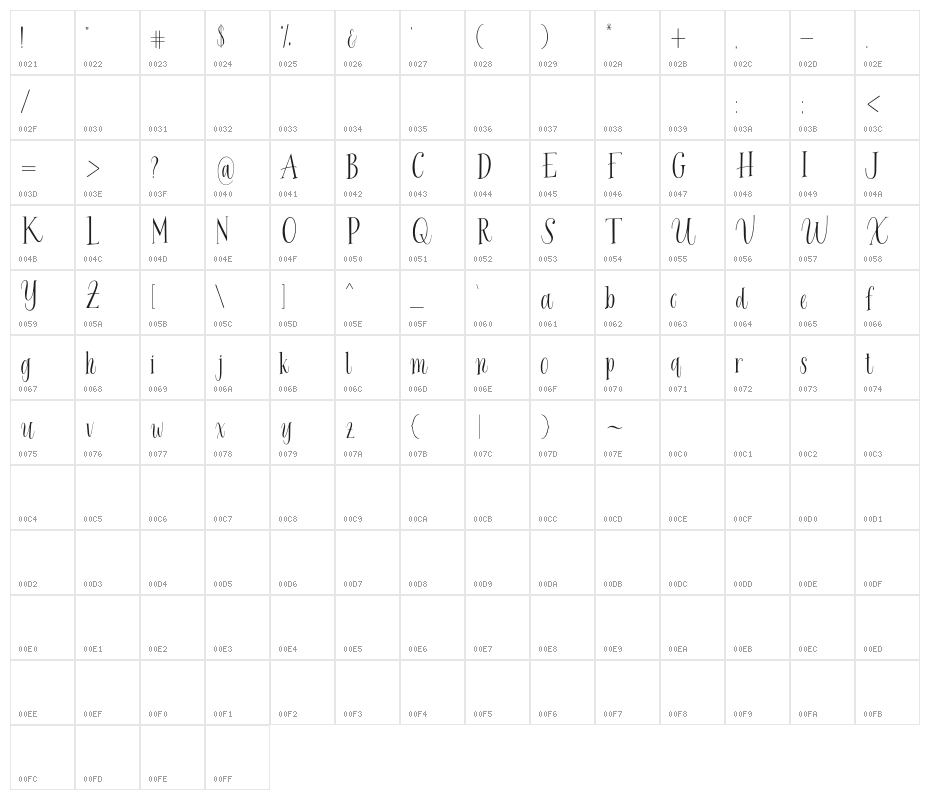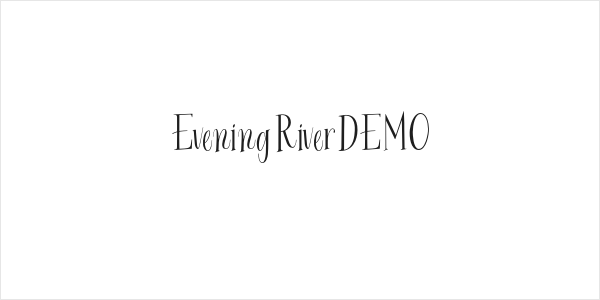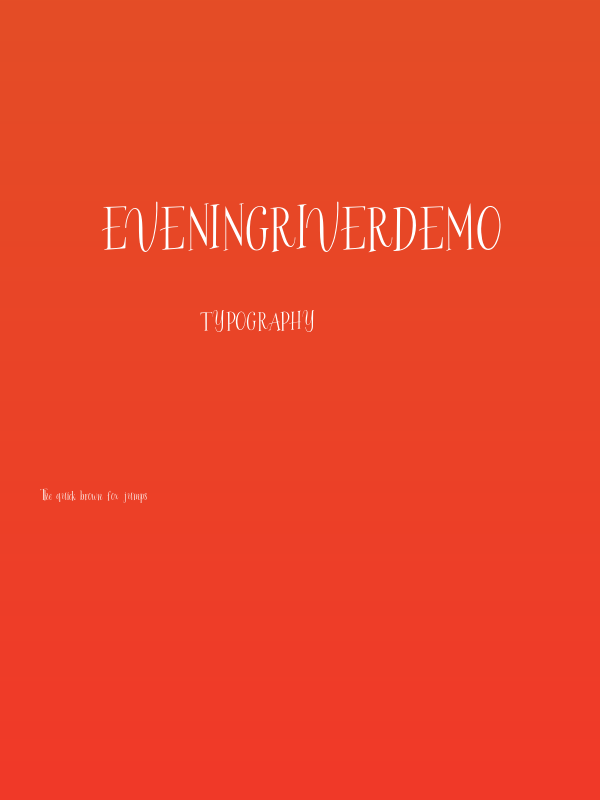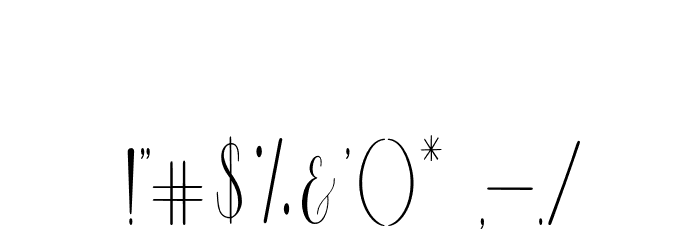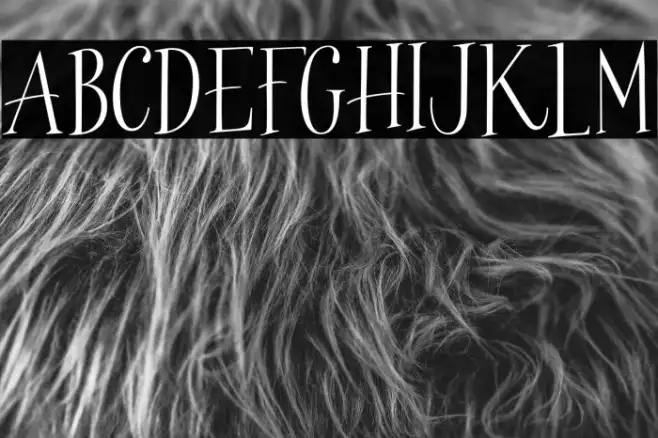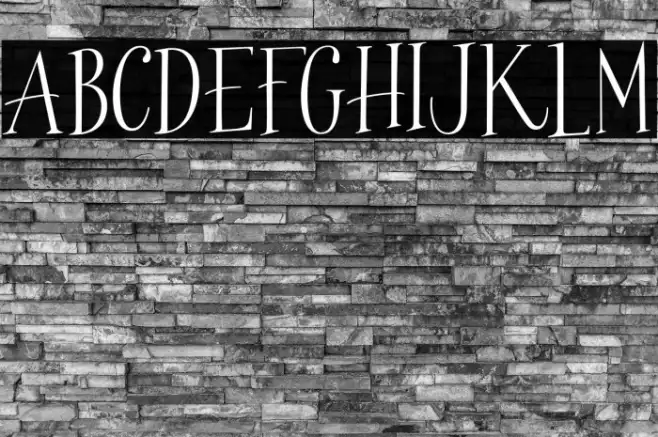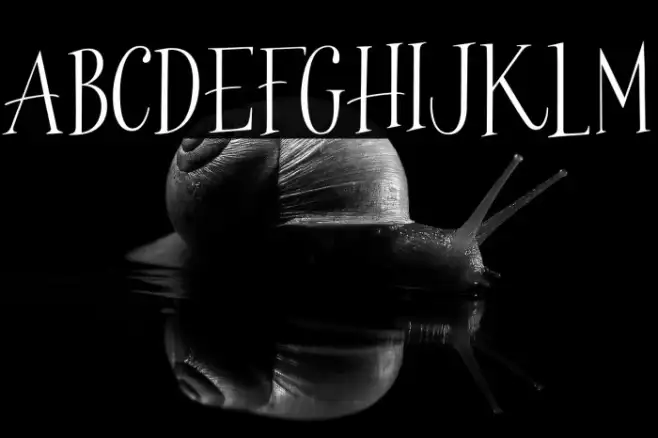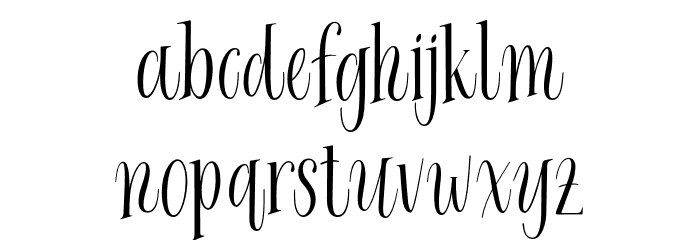
EveningRiverDEMO Font
EveningRiverDEMO Description
This font features a unique blend of elegance and playfulness, characterized by its tall, slender letterforms and subtle curves. The uppercase letters exhibit a graceful, flowing style with a slight slant, giving them a dynamic appearance. The lowercase letters maintain a consistent rhythm, with some characters displaying charming loops and swashes. The overall design is both sophisticated and whimsical, making it suitable for creative and artistic projects. The special characters complement the alphabet with a similar flair, adding to the font's versatility.